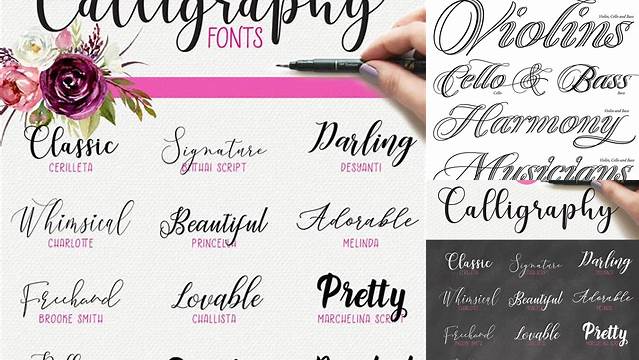
Calligraphy Fonts: Styles & Uses For Elegant Designs
Introduction to Calligraphy Fonts
Calligraphy fonts, guys, are like the rockstars of the typography world! They bring a unique blend of art and writing together, making your text look super elegant and stylish. Think of those beautiful wedding invitations, fancy certificates, and even logos that catch your eye – chances are, they're rocking some kind of calligraphy font. Calligraphy, at its heart, is the art of beautiful writing. It's about creating letterforms with a certain flair, rhythm, and harmony. This isn't just about jotting down words; it's about crafting each letter with intention and care. Historically, calligraphy was a highly respected art form, used in religious texts, official documents, and personal correspondence. Over time, different styles and schools of calligraphy emerged, each with its own distinct characteristics and techniques. Now, with the rise of digital typography, these traditional styles have been adapted into fonts that we can use on our computers and devices. This means you can add a touch of classic elegance to your projects without having to master the art of hand lettering yourself – though learning hand lettering is pretty awesome too! Calligraphy fonts aren't just about looking pretty; they also add a certain level of sophistication and personality to your designs. They can evoke feelings of tradition, luxury, and craftsmanship, making them perfect for projects that need a touch of class. Whether you're designing a logo, creating invitations, or just want to make your text stand out, understanding the different styles of calligraphy fonts can help you choose the perfect one for your needs. So, let's dive in and explore the wonderful world of calligraphy fonts, shall we? We'll look at some of the most popular styles, their history, and how you can use them to make your projects shine. By the end, you'll be a calligraphy font connoisseur, ready to impress everyone with your amazing taste in typography!
Exploring Various Calligraphy Styles
When we talk about calligraphy styles, it's like stepping into a time machine and visiting different eras and cultures, you know? Each style has its own story, its own vibe, and its own set of rules (or rather, guidelines, because art is all about breaking them sometimes!). Let's kick things off with Copperplate, a true classic. This style is all about elegance and grace, with its delicate strokes and flowing curves. Think of those beautiful invitations from the 18th and 19th centuries – that's Copperplate in action. It's super formal and refined, making it perfect for wedding stationery, certificates, and anything that needs a touch of old-world charm. Then there's Spencerian, Copperplate's slightly more relaxed cousin. Spencerian was developed in the United States in the 19th century and was used extensively in business correspondence and penmanship education. It's still elegant, but it has a bit more of a playful, energetic feel. The strokes are a bit thicker, and the curves are a bit more exaggerated, giving it a distinctive look. If you want something that feels both classic and approachable, Spencerian is a fantastic choice. Now, let's hop across the pond to the world of Gothic calligraphy, also known as Blackletter. This style is bold, dramatic, and a little bit intimidating (in a good way!). It's characterized by its thick, angular strokes and dense, dark appearance. Gothic calligraphy was widely used in medieval manuscripts and is often associated with religious texts and historical documents. It's a powerful style that commands attention, making it great for logos, posters, and anything that needs a strong, impactful look. Moving on, we have Italic calligraphy, which is all about speed and efficiency. Italic script was developed in the Renaissance as a more informal and faster alternative to the formal book hands of the time. It's characterized by its slanted letters, flowing strokes, and relatively simple forms. Italic calligraphy is elegant and legible, making it a great choice for body text, personal correspondence, and anything that needs a touch of sophistication without being too stuffy. And of course, we can't forget about Modern calligraphy, which is basically the rebel of the calligraphy world. Modern calligraphy takes the traditional rules and throws them out the window, embracing a more free-flowing, experimental approach. This style is all about thick-to-thin strokes, exaggerated loops, and unique letterforms. It's perfect for adding a personal, artistic touch to your projects. Modern calligraphy is super versatile and can be adapted to fit a wide range of styles and aesthetics. Each of these styles has its own unique personality and history, making the world of calligraphy fonts incredibly diverse and exciting. By understanding the characteristics of each style, you can choose the perfect font to match your project's needs and create something truly special. So, keep exploring, keep experimenting, and have fun with it!
Distinguishing Key Calligraphy Font Styles
Okay, so we've talked about a bunch of different calligraphy styles, but how do you actually tell them apart? It's like trying to tell the difference between different types of coffee – they all look kind of similar at first glance, but once you know what to look for, it's easy! Let's break down the key characteristics of some of the most popular styles, so you can become a calligraphy font detective. First up, Copperplate. The hallmark of Copperplate is its elegant, flowing curves and delicate, hairline strokes. Think of those beautifully flourished capital letters and the consistent slant of the lowercase letters. Copperplate has a very formal and refined appearance, making it perfect for projects that need a touch of classic elegance. Look for the contrast between the thick and thin strokes, which is achieved by applying varying pressure to the pen. Next, we have Spencerian. While Spencerian shares some similarities with Copperplate, it has a more relaxed and energetic feel. The strokes are generally thicker, and the curves are more exaggerated. Spencerian also tends to have a more upright slant compared to Copperplate's more pronounced slant. This style was designed for speed and legibility, so it's a bit less formal and more approachable. When you spot a calligraphy font that feels both classic and dynamic, it's likely Spencerian. Now, let's talk about Gothic, also known as Blackletter. This style is all about drama and impact. The letters are characterized by their thick, angular strokes and dense, dark appearance. Gothic fonts often have a very narrow and compressed look, with the letters tightly packed together. Look for the distinctive pointed arches and the overall heavy, imposing feel. Gothic calligraphy is a statement-maker, perfect for projects that need a bold and historical touch. Moving on to Italic, we find a style that's all about speed and efficiency. Italic calligraphy is characterized by its slanted letters, flowing strokes, and relatively simple forms. The letters have a consistent slant and a graceful, cursive appearance. Italic fonts are often used for body text because they are legible and easy to read. They strike a nice balance between elegance and practicality. Finally, we have Modern calligraphy, which is the wild card of the bunch. Modern calligraphy breaks the traditional rules and embraces a more free-flowing, experimental approach. This style is all about thick-to-thin strokes, exaggerated loops, and unique letterforms. There's a lot of variation within modern calligraphy, but the key is that it feels fresh, contemporary, and personal. Look for unexpected flourishes, playful letterforms, and an overall sense of creativity. By understanding these key characteristics, you can easily distinguish between different calligraphy font styles and choose the perfect one for your project. It's all about paying attention to the details and developing an eye for the nuances of each style. So, keep practicing your font detective skills, and you'll be a pro in no time!
How to Choose the Right Calligraphy Font
Choosing the right calligraphy font can feel like picking the perfect outfit for a special occasion, you know? It's all about matching the font's personality to the message you want to convey. A super formal Copperplate font might not be the best choice for a casual birthday invitation, just like a pair of sneakers wouldn't be ideal for a black-tie event. So, how do you make the right choice? Let's break it down. First, consider the tone and purpose of your project. Are you designing a wedding invitation? A logo for a luxury brand? A poster for a rock concert? Each of these projects has a different tone and requires a different style of calligraphy. For a wedding invitation, you might lean towards elegant and refined styles like Copperplate or Spencerian. These fonts evoke feelings of romance, tradition, and sophistication. For a luxury brand logo, you might also consider these styles, but you might also explore modern calligraphy for a more contemporary twist. If you're designing a poster for a rock concert, Gothic or a bold modern calligraphy style might be more appropriate. These styles are eye-catching, edgy, and convey a sense of energy and excitement. Next, think about the readability of the font. While calligraphy fonts are beautiful, they can sometimes be less legible than standard fonts. If your project requires a lot of text, it's important to choose a font that is easy to read. Italic and some modern calligraphy styles are generally more legible than Gothic or highly stylized fonts. You might also consider using a simpler calligraphy font for the body text and a more elaborate font for headings or titles. Another important factor to consider is the context in which the font will be used. Will it be printed? Displayed on a screen? Used in a logo that needs to be scalable? Some fonts look great in print but may not translate well to digital screens. Others may be too delicate to be used in small sizes. If you're designing a logo, for example, you'll want to choose a font that is legible and recognizable even when it's scaled down. It's also a good idea to consider the overall aesthetic of your project. How does the calligraphy font fit in with the other design elements, such as colors, images, and layout? The font should complement the overall design and enhance the message you're trying to convey. If you're using a lot of modern, minimalist design elements, a classic calligraphy font might feel out of place. On the other hand, if you're creating a vintage-inspired design, a modern calligraphy font might not be the best choice. Finally, don't be afraid to experiment! Try out different fonts and see what works best for your project. You can also mix and match different fonts to create a unique and interesting look. Just make sure the fonts you choose complement each other and don't clash. Choosing the right calligraphy font is a process of careful consideration and experimentation. By thinking about the tone and purpose of your project, the readability of the font, the context in which it will be used, and the overall aesthetic of your design, you can find the perfect font to make your project shine. So, go ahead, explore the world of calligraphy fonts, and have fun with it!
Practical Applications of Calligraphy Fonts
Okay, so we know calligraphy fonts are beautiful and elegant, but where can you actually use them? The answer, guys, is pretty much everywhere! Calligraphy fonts are super versatile and can add a touch of class to a wide range of projects. Let's dive into some practical applications and get those creative juices flowing. First up, wedding invitations and stationery. This is where calligraphy fonts truly shine. They add a touch of romance and sophistication to wedding invitations, save-the-dates, and thank-you cards. Imagine a beautiful Copperplate font gracing the names of the happy couple or a delicate Spencerian script adding a personal touch to a handwritten note. Calligraphy fonts elevate wedding stationery from simple announcements to cherished keepsakes. But it's not just about weddings! Calligraphy fonts are also perfect for other types of invitations and announcements. Think about birthday parties, anniversaries, graduations, and baby showers. A well-chosen calligraphy font can make any invitation feel special and elegant. It shows that you've put thought and care into the design, making your guests feel even more valued. Moving beyond personal events, calligraphy fonts are also fantastic for branding and logo design. A calligraphy-based logo can convey a sense of luxury, craftsmanship, and tradition. Many high-end brands use calligraphy fonts in their logos to create a sophisticated and timeless look. Think about fashion brands, beauty companies, and artisanal food producers. A calligraphy font can help these brands stand out and communicate their unique identity. Calligraphy fonts are also widely used in editorial design and publishing. They can add a touch of elegance to book covers, magazine layouts, and article headings. A beautifully crafted calligraphy font can draw the reader's eye and create a sense of visual interest. Whether it's a classic Gothic font for a historical novel or a modern calligraphy font for a lifestyle magazine, the right font can enhance the overall reading experience. Another popular application of calligraphy fonts is in certificates and awards. A calligraphy font adds a sense of formality and prestige to certificates of achievement, diplomas, and awards. It makes the recipient feel like their accomplishment is truly special and deserving of recognition. Think about the elegant calligraphy used on graduation diplomas or the formal script on professional certifications. Calligraphy fonts elevate these documents from simple pieces of paper to symbols of accomplishment. Finally, let's not forget about the digital world. Calligraphy fonts are widely used on websites, social media graphics, and email marketing campaigns. They can add a touch of personality and visual interest to digital content, making it more engaging and memorable. Whether it's a calligraphic header on a website or a hand-lettered quote on an Instagram post, calligraphy fonts can help your digital content stand out from the crowd. So, as you can see, the practical applications of calligraphy fonts are vast and varied. From wedding invitations to logo design to digital content, these fonts can add a touch of elegance, sophistication, and personality to any project. The key is to choose the right font for the occasion and use it thoughtfully to convey your message effectively. Go forth and sprinkle some calligraphy magic wherever you go!
Tips for Pairing Calligraphy Fonts with Other Fonts
Pairing fonts is like mixing and matching outfits, you know? You want to create a look that's stylish and harmonious, but not too matchy-matchy. When it comes to calligraphy fonts, which are often the stars of the show, finding the right supporting cast is crucial. A poorly chosen font pairing can make your design look cluttered and confusing, while a well-chosen pairing can elevate your design to a whole new level. So, let's talk about some tips for pairing calligraphy fonts with other fonts. First and foremost, contrast is key. You want to choose a font that complements your calligraphy font without competing with it. A good way to achieve this is to pair a decorative calligraphy font with a simpler, more neutral font. Think of it like pairing a fancy dress with a classic pair of shoes – the shoes support the dress without stealing its thunder. For example, you might pair a flowing Copperplate calligraphy font with a clean sans-serif font like Helvetica or Arial. The sans-serif font provides a sense of clarity and simplicity that balances the ornate nature of the calligraphy font. This combination is classic and elegant, perfect for wedding invitations or branding materials. Another great option is to pair a calligraphy font with a serif font that has a different personality. For instance, you might pair a modern calligraphy font with a sturdy serif font like Garamond or Times New Roman. The contrast between the flowing, handwritten style of the calligraphy font and the classic, structured look of the serif font can create a visually interesting and dynamic design. Consider the mood and tone you want to convey. Just like with choosing a single font, the font pairing should reflect the overall message and purpose of your project. If you're designing something formal and elegant, you might pair a traditional calligraphy font with a classic serif font. If you're going for a more modern and playful look, you might pair a script calligraphy font with a simple sans-serif font or even a geometric font. Pay attention to the hierarchy of your design. The calligraphy font is often used for headings or titles, while the secondary font is used for body text or supporting information. This means you want to choose a body text font that is legible and easy to read, even in smaller sizes. Sans-serif fonts are often a good choice for body text because they tend to be cleaner and more readable than serif fonts. However, there are also many serif fonts that work well for body text, especially in print. Limit the number of fonts you use. In general, it's best to stick to two fonts in a design. Using too many fonts can make your design look cluttered and confusing. If you need more variation, try using different weights or styles of the same font family. For example, you might use a bold version of a sans-serif font for headings and a regular version for body text. Finally, trust your eye and experiment! There are no hard and fast rules when it comes to font pairing. The most important thing is to create a combination that looks good and effectively communicates your message. Try out different combinations and see what works best for your project. Get feedback from others and don't be afraid to break the rules if it feels right. Pairing calligraphy fonts with other fonts is a skill that takes practice and experimentation. By following these tips and trusting your instincts, you can create beautiful and effective designs that stand out from the crowd. So, go forth, mix those fonts, and make some magic happen!
Conclusion: The Timeless Appeal of Calligraphy Fonts
So, guys, we've journeyed through the fascinating world of calligraphy fonts, exploring their history, styles, and practical applications. We've learned how to distinguish between different styles, how to choose the right font for a project, and how to pair calligraphy fonts with other fonts to create stunning designs. But what is it about calligraphy fonts that makes them so enduringly popular? What is it that draws us to their elegant curves, their delicate strokes, and their timeless charm? I think it's a combination of things. First, calligraphy fonts evoke a sense of history and tradition. They connect us to a time when handwriting was an art form, when letters were crafted with care and attention to detail. Calligraphy fonts remind us of the beauty and craftsmanship of the past, adding a touch of nostalgia and elegance to our designs. Second, calligraphy fonts offer a sense of personality and individuality. Each calligraphy font has its own unique character and style, allowing us to express our personal taste and creativity. Whether it's the formal grace of Copperplate, the energetic flair of Spencerian, or the modern freedom of contemporary calligraphy, there's a calligraphy font to suit every mood and message. Third, calligraphy fonts add a touch of sophistication and luxury to any project. They elevate designs from the ordinary to the extraordinary, creating a sense of refinement and elegance. Calligraphy fonts are often used in high-end branding, wedding stationery, and other applications where a sense of quality and craftsmanship is desired. Fourth, calligraphy fonts are versatile and adaptable. They can be used in a wide range of projects, from invitations and announcements to logos and websites. They can be paired with different styles of fonts and design elements to create a variety of looks and feels. Whether you're going for a classic, modern, or whimsical aesthetic, there's a calligraphy font that can help you achieve your vision. Finally, calligraphy fonts are simply beautiful. They are a visual delight, capturing the eye and engaging the imagination. Their flowing lines, elegant curves, and artistic flourishes create a sense of movement and rhythm that is both captivating and inspiring. In a world of digital fonts and mass-produced typography, calligraphy fonts offer a refreshing reminder of the beauty and artistry of the human hand. So, the next time you're looking for a font that will make your project stand out, consider the timeless appeal of calligraphy fonts. Whether you're designing a wedding invitation, a logo, or a website, a well-chosen calligraphy font can add a touch of elegance, sophistication, and personality to your work. Go ahead, embrace the beauty of calligraphy, and let your creativity flow! The world of typography is waiting for your unique touch.